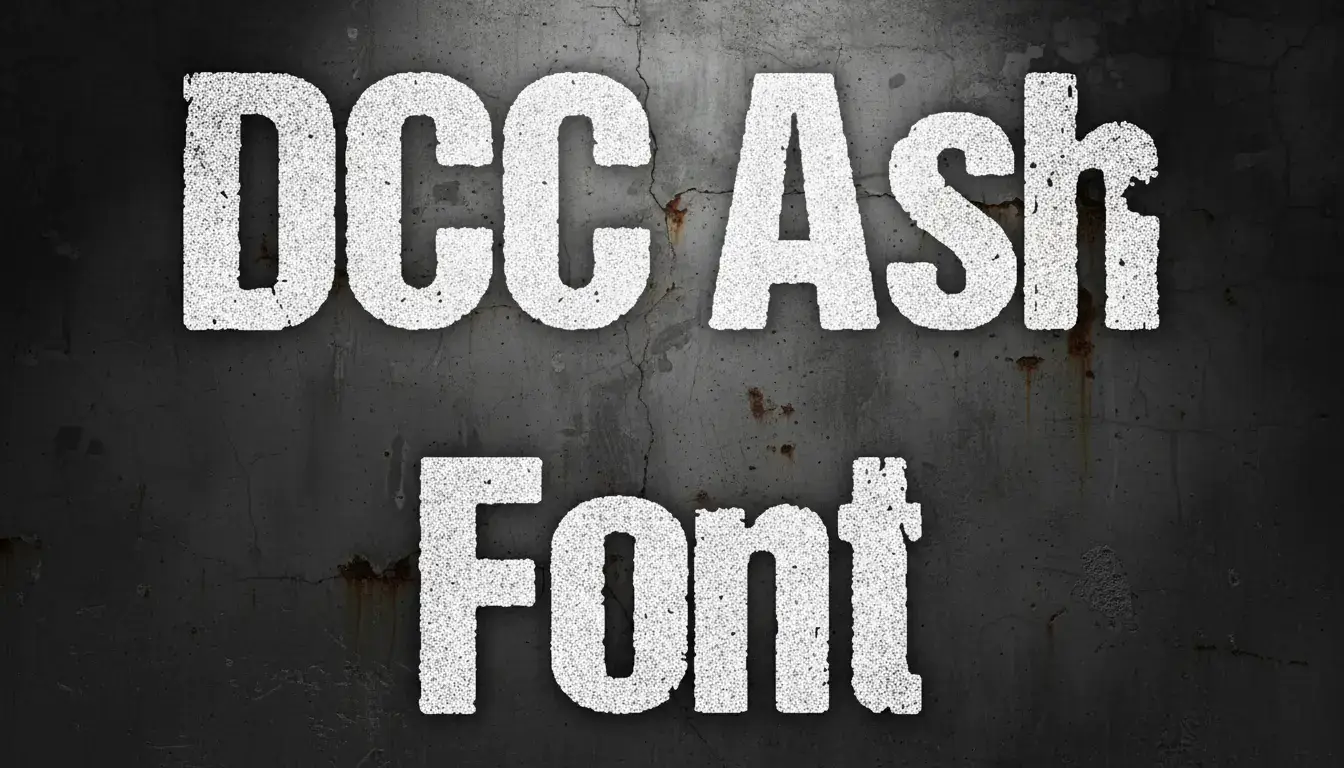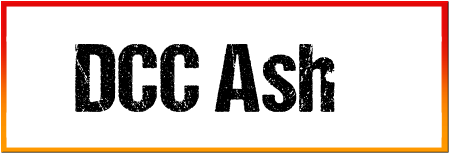
DCC Ash Font
DCC Ash
DCC Ash is a fancy font. Bold and full of character, it's built to stand out rather than blend in. You can download it for free and test it with your own words in the preview above.
What You Can Type With DCC Ash
You get every letter from A to Z in both cases and all the numbers from 0 to 9, which means DCC Ash can handle full sentences, dates and prices. Everyday marks like &, !, ? and @ are there too. It has 67 accented letters, but not the full set for Spanish or French, so test any non-English words first.
Where DCC Ash Works Best
Designers usually reach for fonts like DCC Ash when they're making posters, logos and eye-catching headlines. Use it for one standout word or headline and let simpler fonts handle the rest.